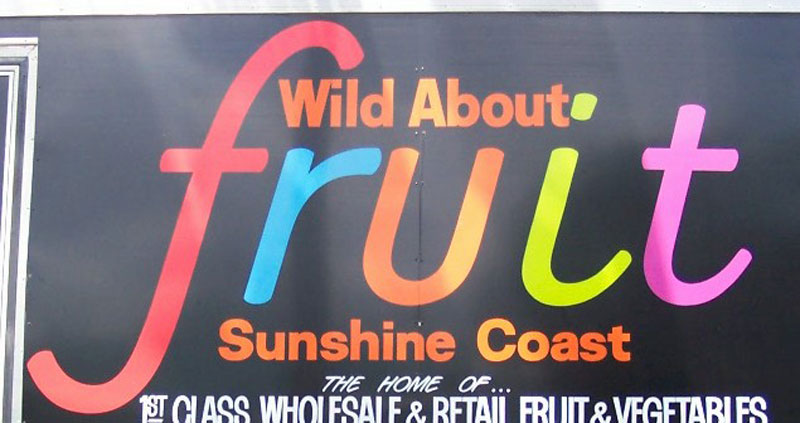
Can anyone put a name to the font used in the word "Fruit". The guy told me it was just painted by a signwriter, but he had the same logo embroidered on his shirt and his business card was identical. By the way, I think it is ugly but we won't go there!!:design:
Thanks Fred. I'm convinced that if you don't get a match then nobody will. The job was handpainted so I guess the signie just drew it out of his head and probably gave the guy a hand drawing of it for other printing services.